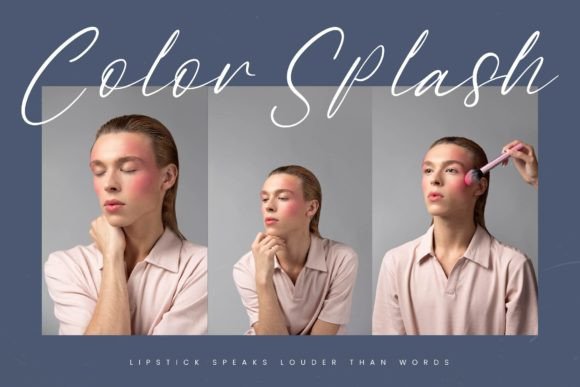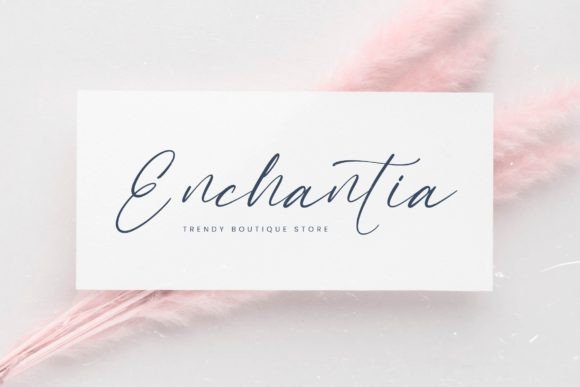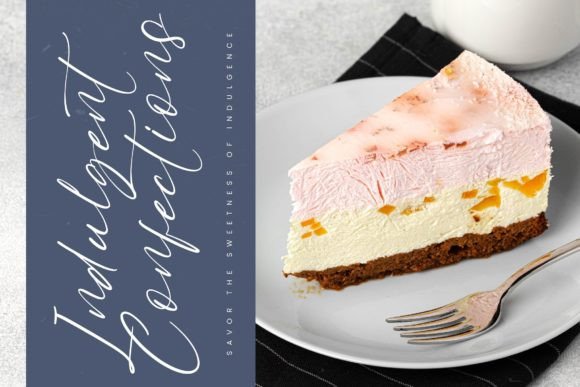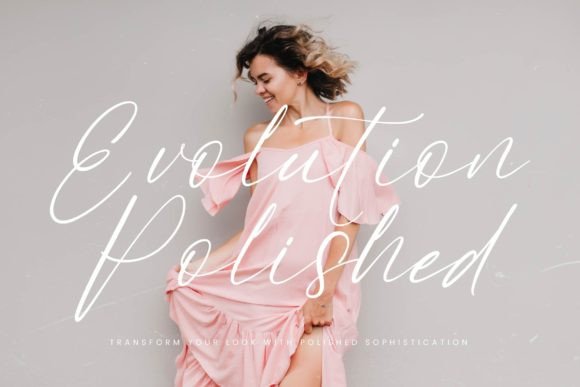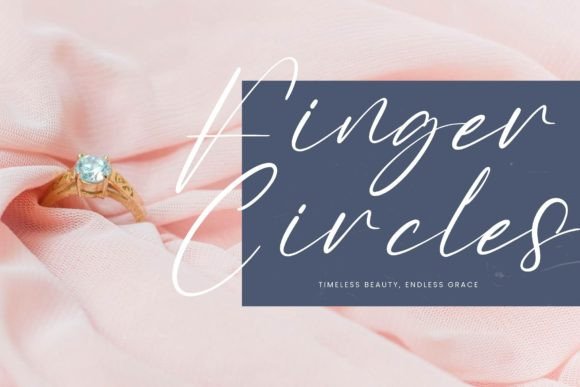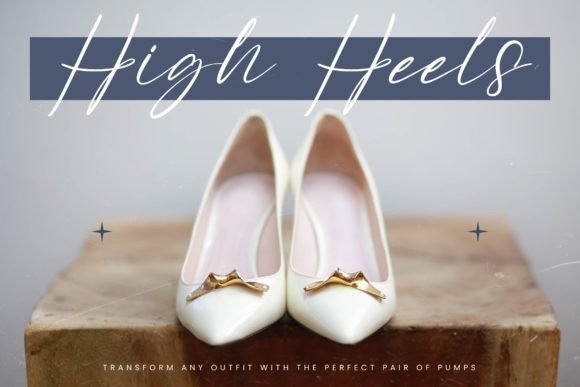
Introduction to Mandyta Oliver Font
Have you ever stumbled upon a beautifully crafted font that instantly sparks creativity and sets the tone for a stunning design? That’s exactly what happened to many designers when they laid eyes on the exquisite Mandyta Oliver Font from Letterena. This luxury script font is a game-changer for any creative project, offering a unique blend of elegance and sophistication.
As a valuable design resource, the Mandyta Oliver Font is perfect for designers seeking a high-quality font that can elevate their work to new heights. With its versatility and wide range of applications, from logos and branding projects to homeware designs and product packaging, this font is a must-have for any designer looking to add a touch of luxury to their projects.
One of the standout features of the Mandyta Oliver Font is its transparent background, making it easy to use and customize for any design need. Plus, with its free download option, designers can access this incredible font without breaking the bank. Whether you’re working on a special event, creating a beautiful book cover, or designing a stunning product label, the Mandyta Oliver Font is sure to impress.
Key Features of Mandyta Oliver Font
- High-quality, professional design suitable for creative projects and various design resources.
- Includes multiple font styles and weights, providing versatility for various design applications.
- Designed by a skilled typographer, offering a unique and aesthetically pleasing font style.
Honest Review: Mandyta Oliver Font
I recently stumbled upon the Mandyta Oliver Font while searching for a unique design resource for my creative project. I must say, I was quite impressed with what I found. This free download offers a high-quality font that’s perfect for designers looking to add a touch of elegance to their work.
Here are some things that work well with the Mandyta Oliver Font:
- ✨ Beautiful calligraphy style that adds a personal touch to designs
- ✨ High-quality, crisp letters that look great on transparent backgrounds
- ⚠️ Limited character set, which may not be suitable for projects requiring a wide range of characters
- ⚠️ May not be suitable for very small text sizes due to the intricate details
Overall, I’m impressed with the Mandyta Oliver Font. It’s a great addition to any designer’s toolkit, and the free download is a major plus. While it may have some limitations, it’s definitely worth considering for your next creative project.
Tips for Getting the Most Out of Mandyta Oliver Font
To maximize the potential of Mandyta Oliver Font, consider the following tips:
- Experiment with different font sizes and styles to achieve the desired effect
Common Use Cases for Mandyta Oliver Font
The Mandyta Oliver Font is ideal for a variety of creative projects, including:
- Infographics and presentations
Alternatives to Mandyta Oliver Font
When to use: Wedding invitations, branding materials, and other design projects that require a delicate touch.
How it compares to Mandyta Oliver Font: Great Vibes has a more elegant and refined feel compared to Mandyta Oliver Font, making it suitable for high-end design projects.
Alex Brush is a beautiful, handwritten font that’s perfect for design projects that require a personal touch. It’s great for creating unique branding materials, social media graphics, and other design resources that need a touch of whimsy. Alex Brush features a high-quality design with a transparent background, making it easy to customize.